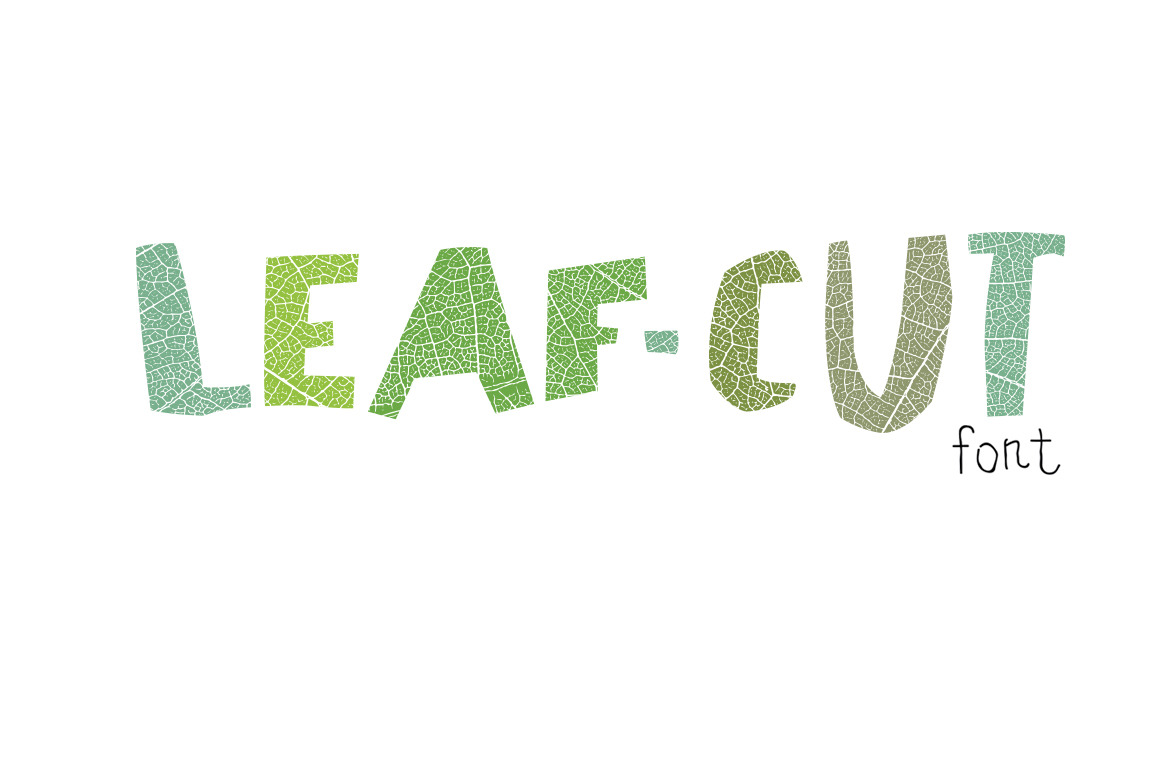
Leaf cut font. Cut-out shape
Leaf Cut Alphabet. Leaf veins texture and cut-out shape letters. Exellent font for ecology, environment, nature, organic themed designs. Capital case.
Easy edited colors of letters.